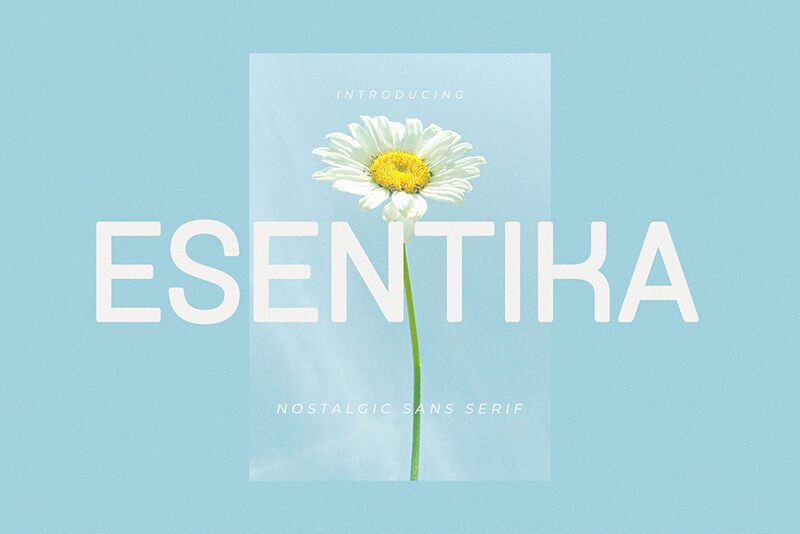
Esentika Regular
Esentika, designed by BrandSemut, exudes a modern and clean aura with its sans serif style that speaks to clarity and readability. Its bold character strokes convey confidence, making it a standout choice for headings and titles that demand attention. The uniformity of the typeface suggests reliability, which is ideal for professional presentations or branding materials.
The aesthetic appeal of Esentika lies in its balance between approachability and sophistication, rendering it versatile for both digital interfaces and print media. This font could shine in various design contexts, from tech startups' websites to the crisp pages of lifestyle magazines. Its striking presence can also anchor branding efforts, giving logos and slogans a memorable edge.